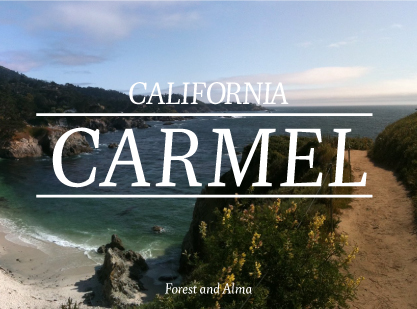
An italic typeface for personal-feeling letterforms.
The typeface follows the humanist model of Ludovico Arrighi's italic type from Renaissance
Italy, but its calligraphic details have been simplified to create a friendly voice. Pigeon also
incorporates some of the "sparkle" that gives drama to the Dutch Baroque types of Johannes
Fleischmann, referencing the nobility of letter-writing.